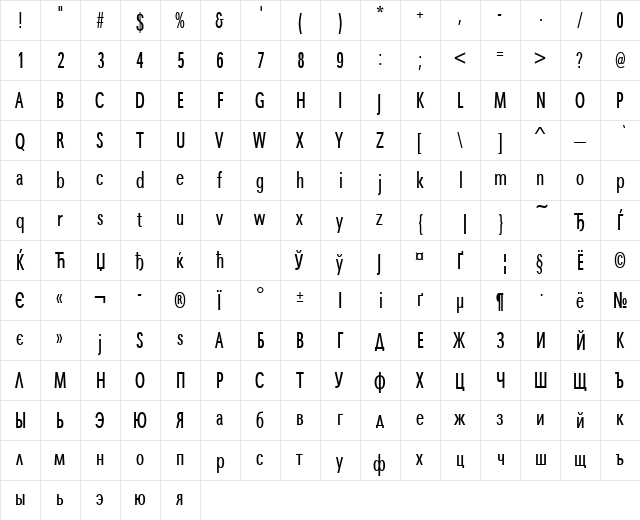
MaximaCyrTCYLigCom Regular
Design Context for MaximaCyrTCYLigCom Typeface
MaximaCyrTCYLigCom is a composed and adaptable typeface that performs quietly and consistently across a wide range of design contexts.